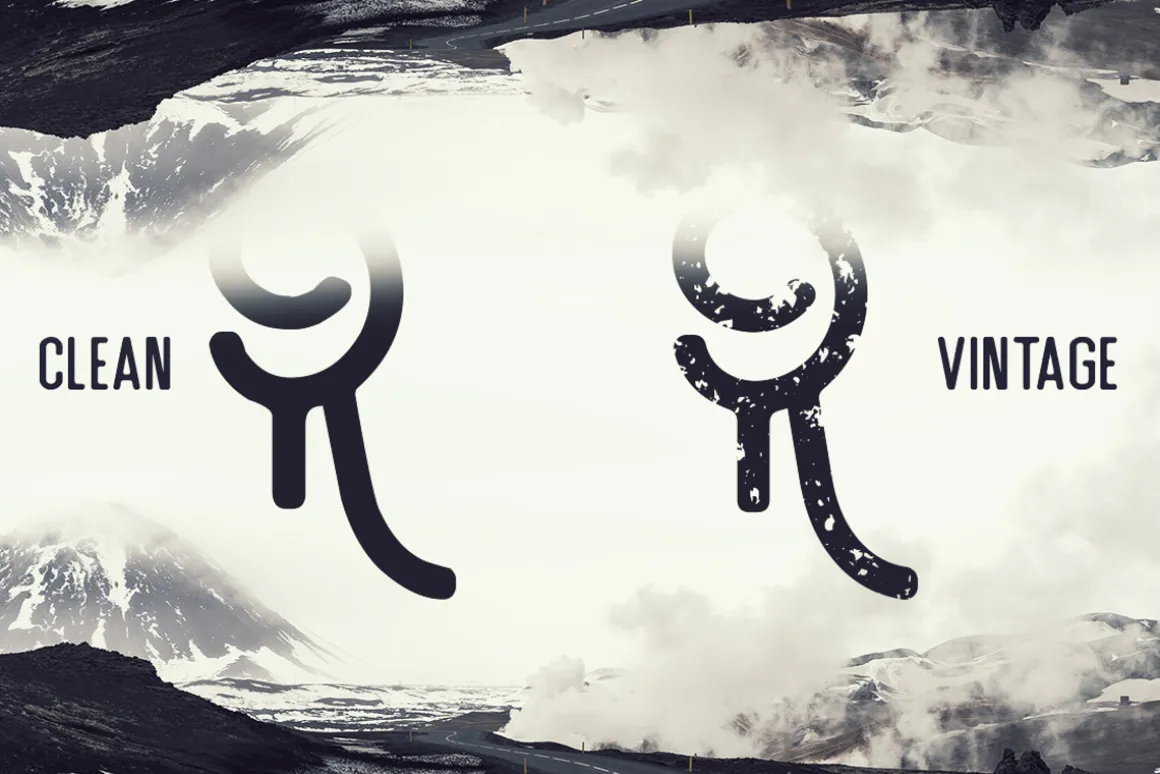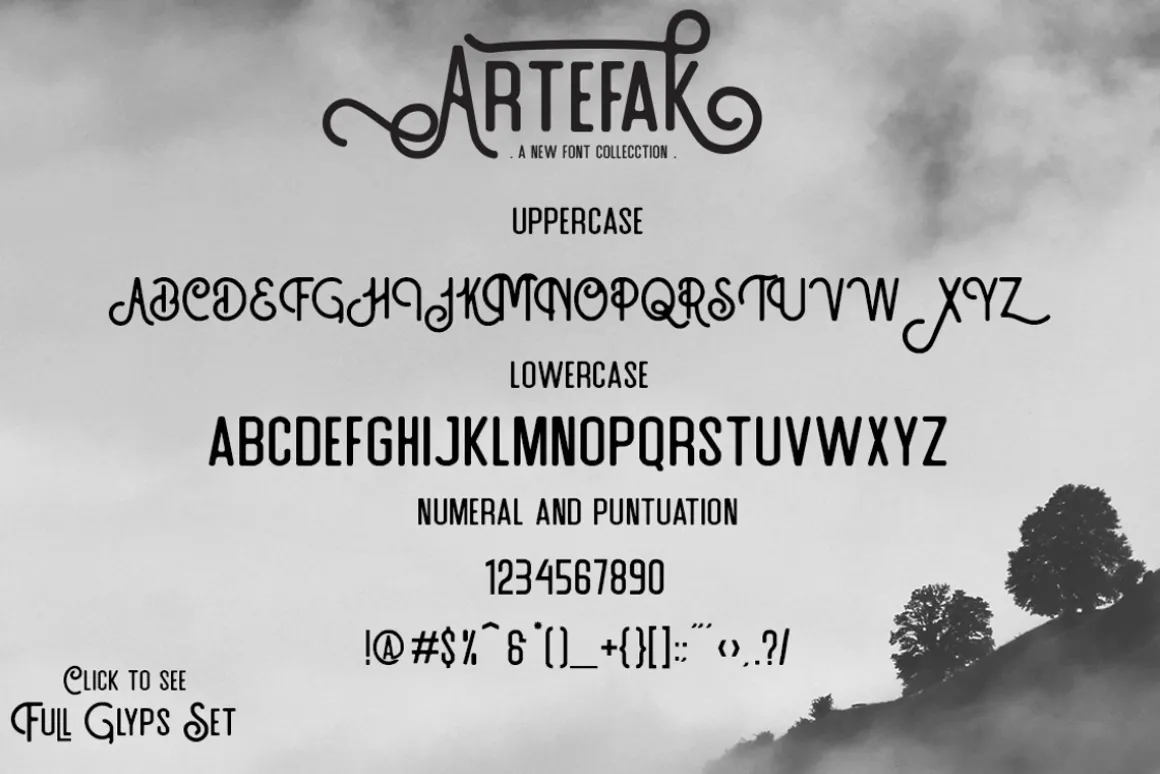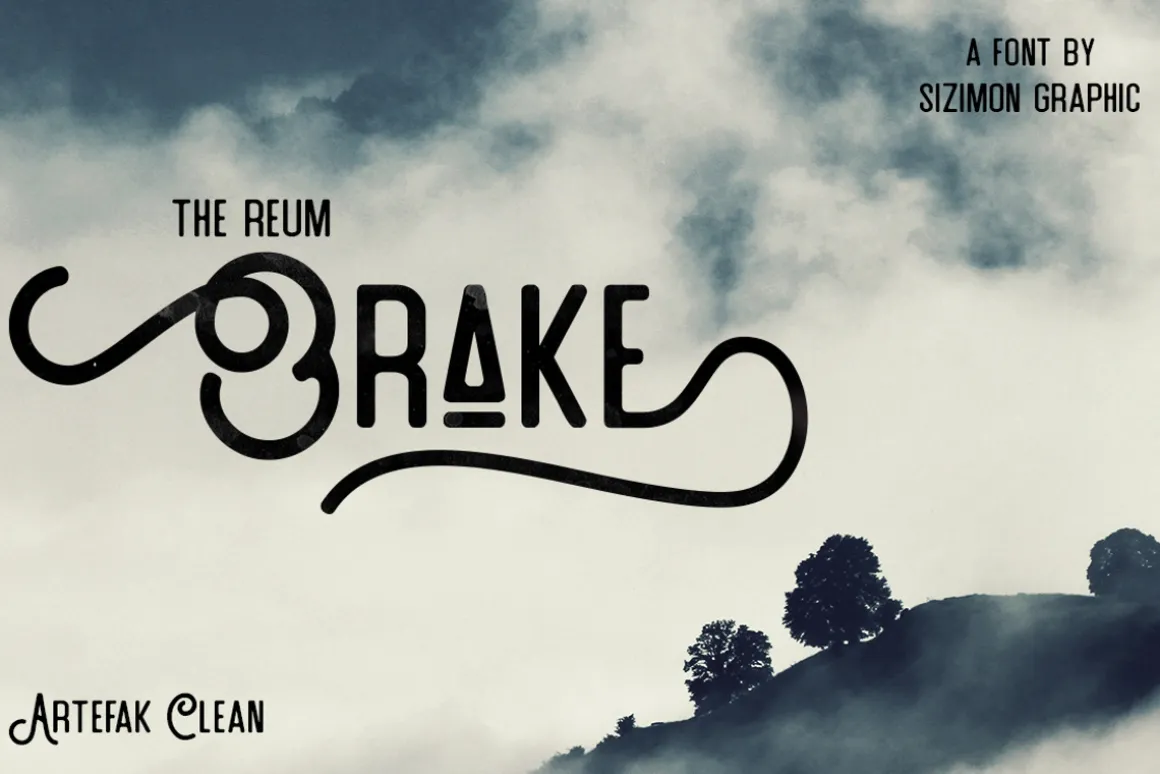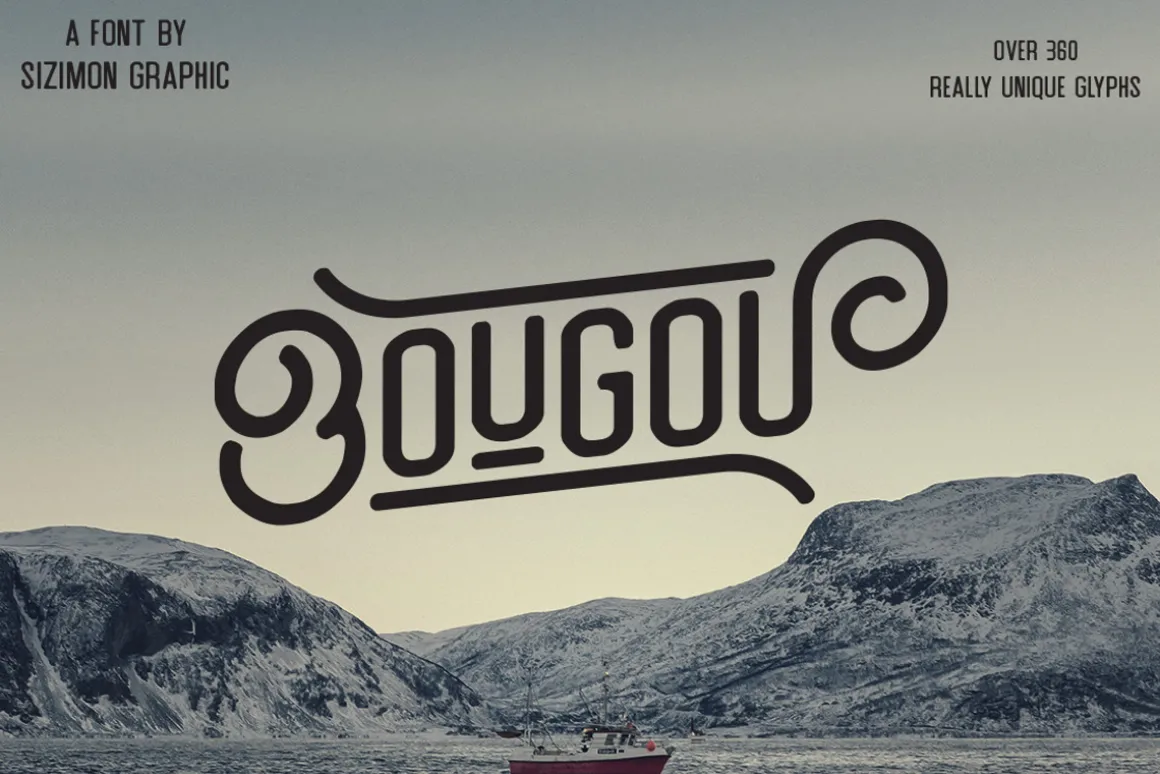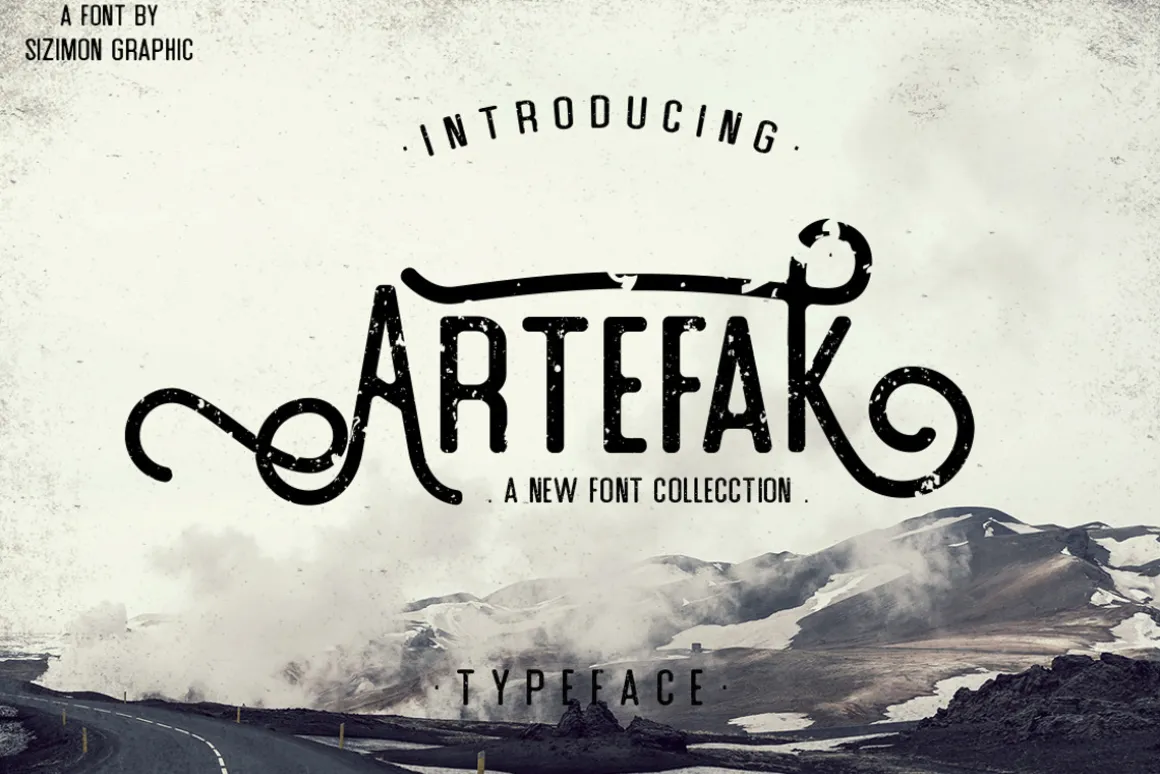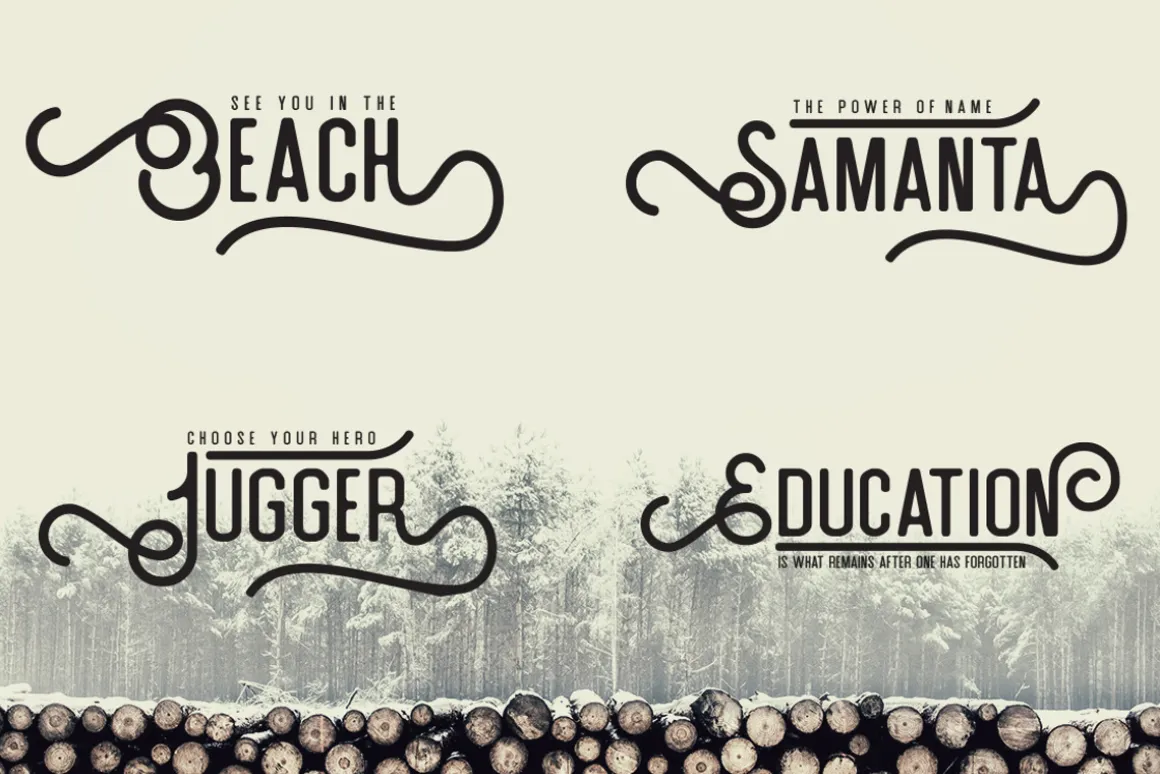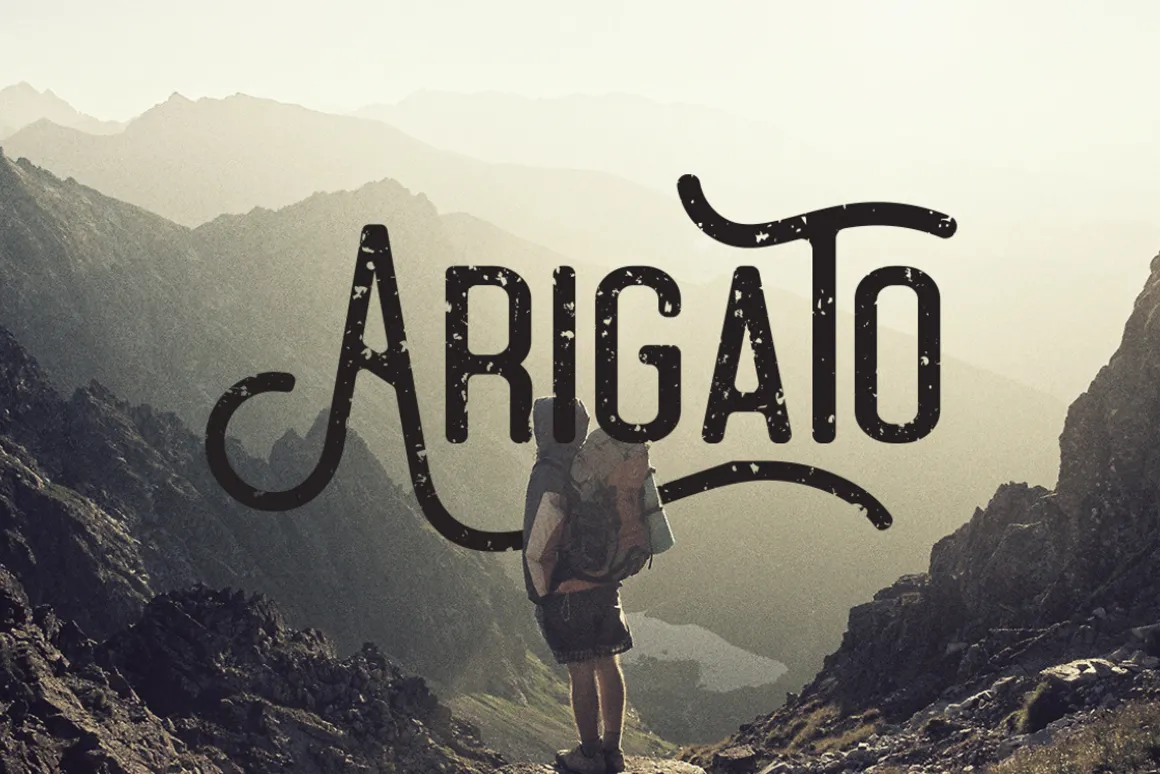
Artefak Typeface A handmade typeface with two style Clean and Vintage that inspired from hand-drawn lettering and vintage style, suitable for your awesome works (Brands, Poster, Logo, Advertisement, etc)
Artefak Typeface equipped with :
- Uppercase,lowercase,numeral,punctuation,multilingual support & Symbol
- Stylistic alternates
- Stylistic Set01 – Stylistic Set07
- Swash
- Ligatures
- Titling